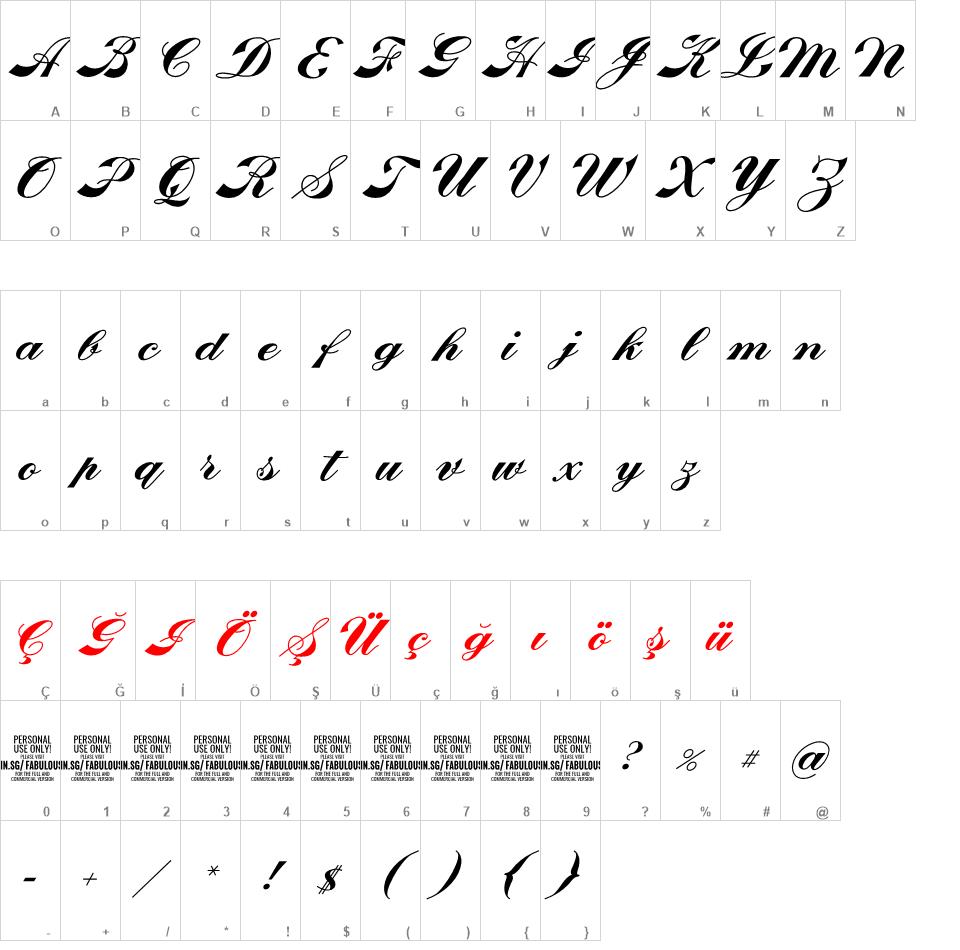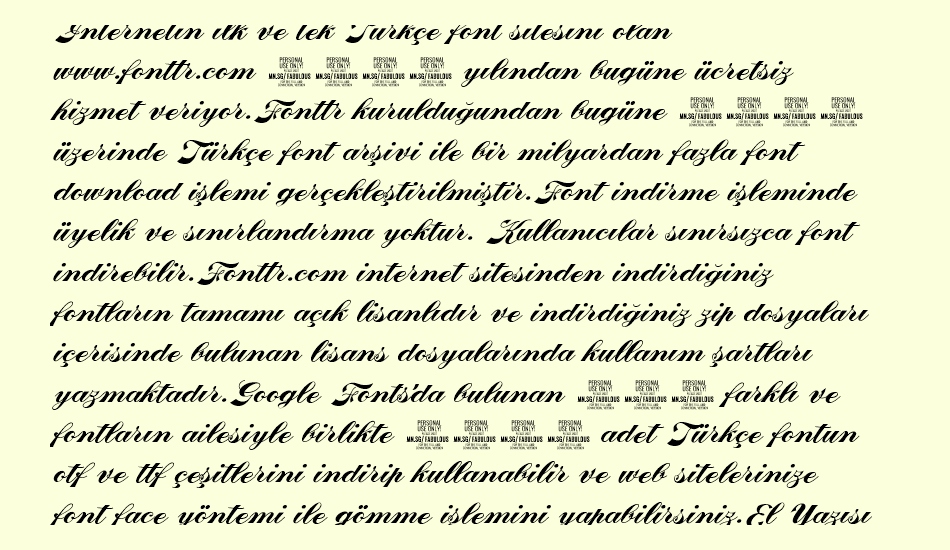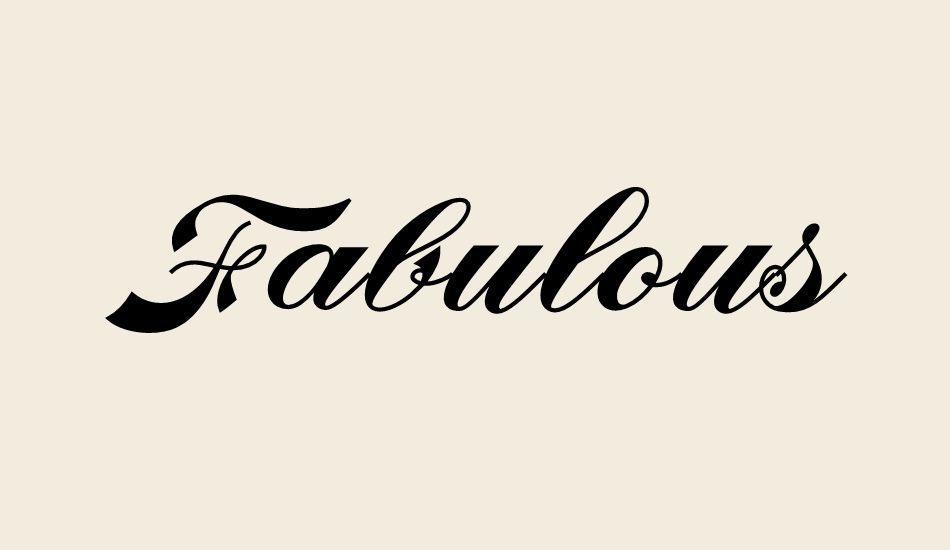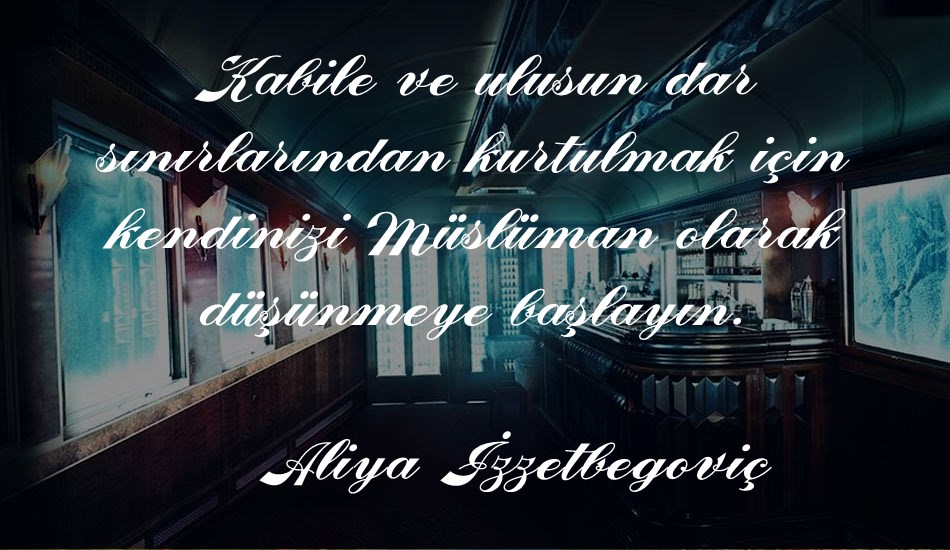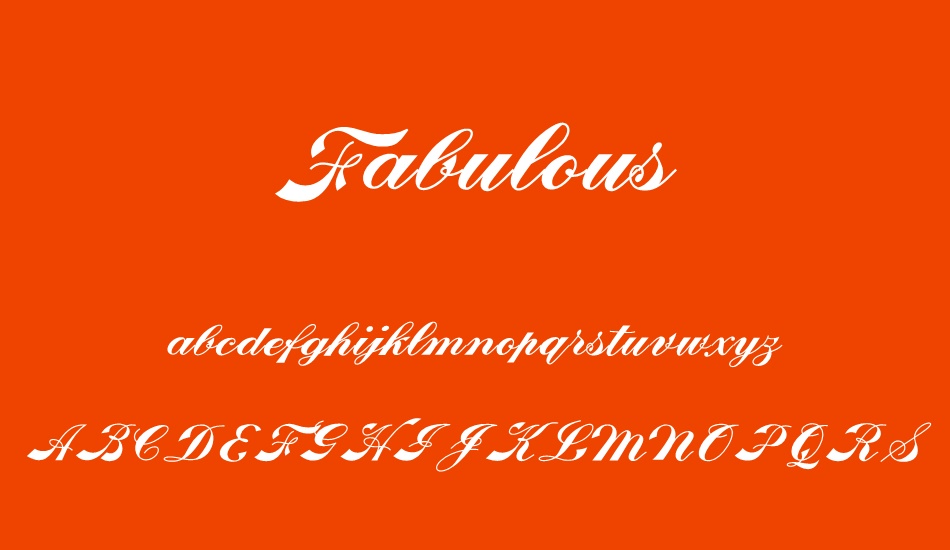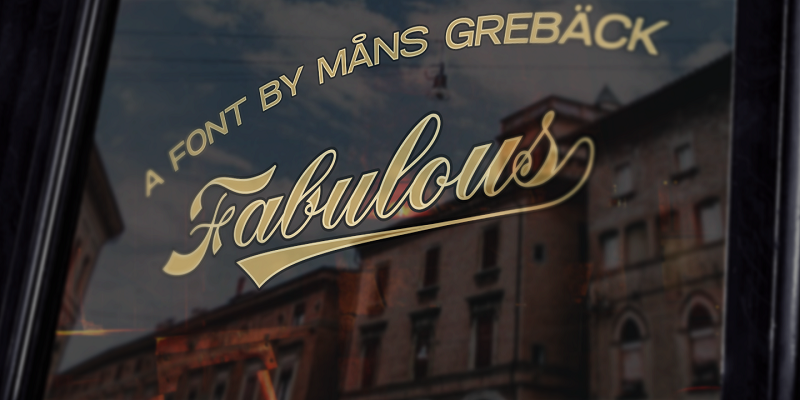
Fabulous font
Fabulous is a classic logotype script.
Bold but delicate, this script has both class and genuinity.
The typeface also includes a white, outlined version called Fabulous Outline.
Write _ after a word to get a swash.
Example: Fabulous_
With ligatures activated, write _ and a number for more swashes.
Example: Lovely_5 Font_2